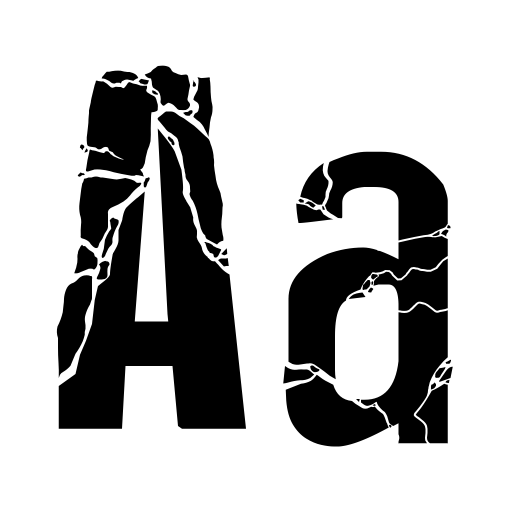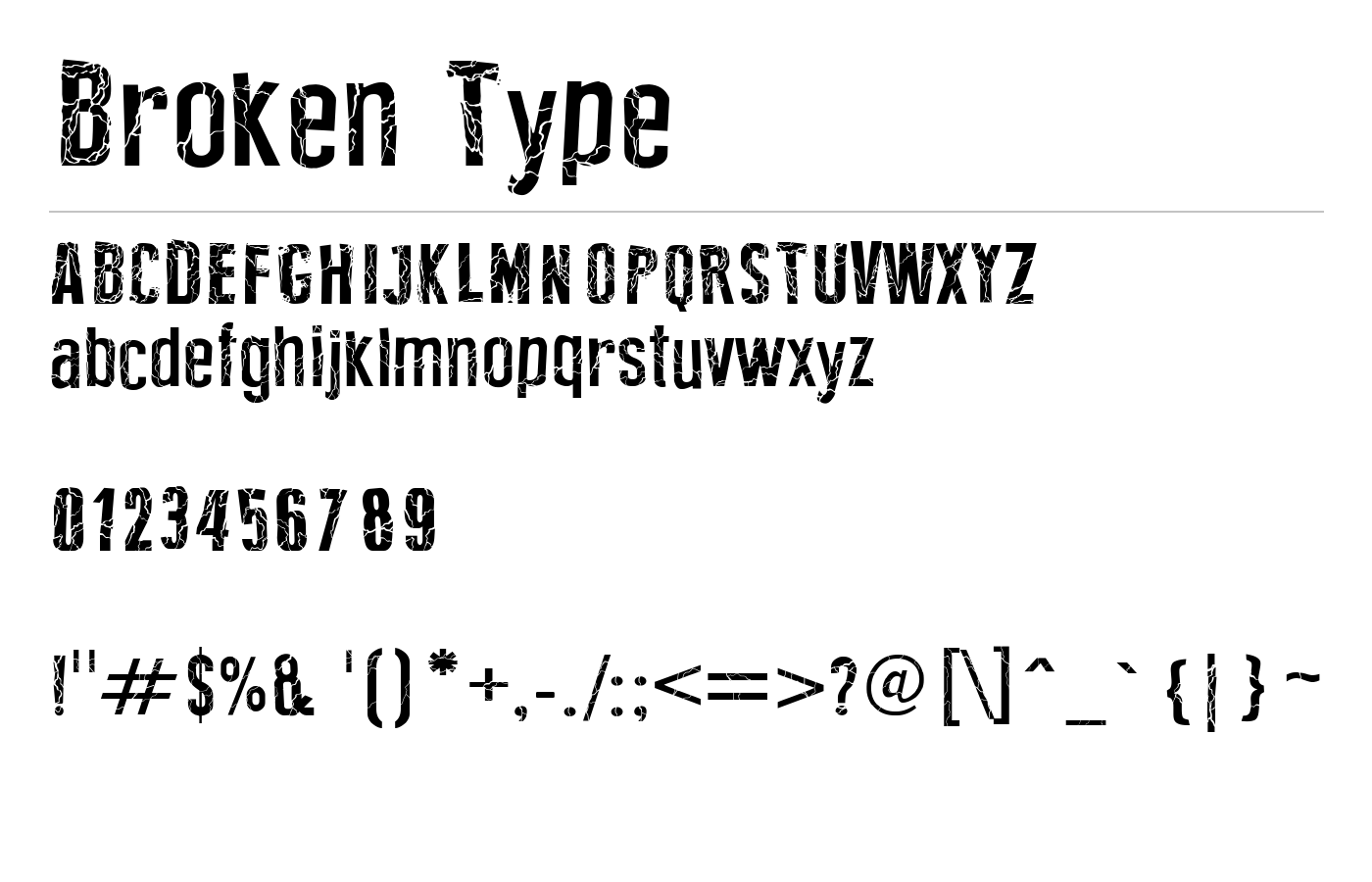
Broken Type Font is a bold, condensed sans serif with a distressed, cracked texture that gives it a rugged, edgy feel. Its tall x-height and tight spacing make it impactful and attention-grabbing, ideal for designs needing a gritty, industrial vibe. This font works best in headlines, posters, and branding where a strong, unconventional statement is desired.
Broken Type Font
About Broken Type Font
| Font family | Broken Type Font |